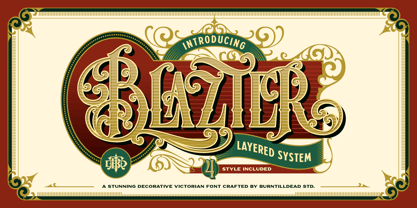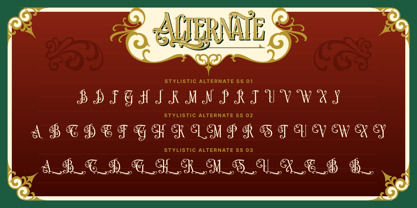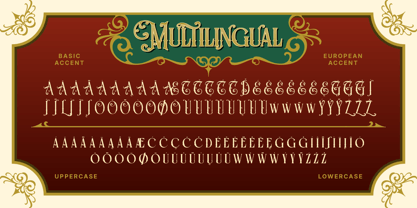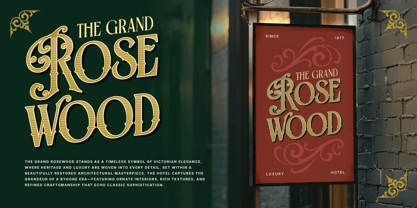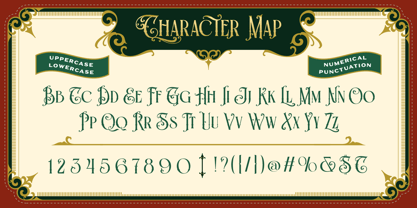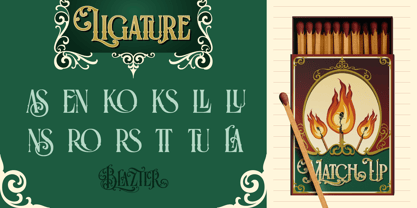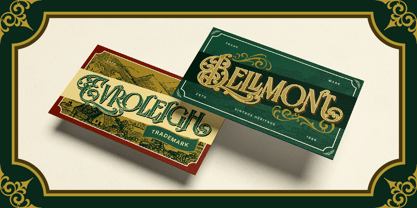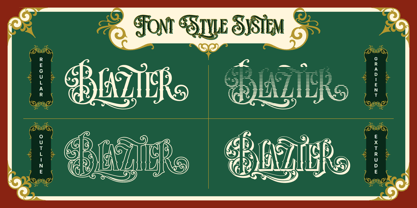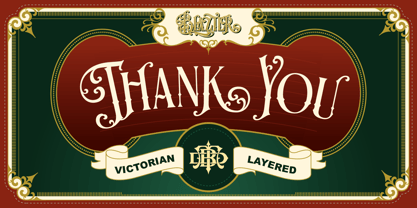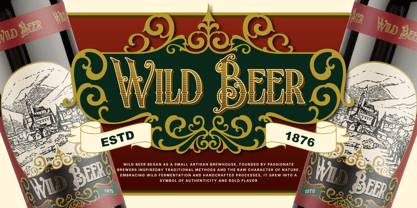
Blazter
von Burntilldead
Die Schriftfamilie Blazter wurde von Eric Kurniawan entworfen und von Burntilldead veröffentlicht. Blazter enthält 4 Stile und Familienpaketoptionen. Mehr über diese Familie
Blazter is a stunning decorative Victorian font designed to bring elegance, vintage charm, and bold character into your designs. Inspired by classic 19th-century typography, this font features intricate swashes, ornamental details, and a beautifully crafted layered system.
Built with a layered font system, Blazter allows you to easily create eye-catching typography with depth and dimension. Whether you're going for a classic gold engraving look or a bold vintage label style, this font gives you full creative control.
Perfect for designers who want to create luxury, heritage, and retro-inspired visuals with a strong personality.
Features: A - Z set (Uppercase & Lowercase), Number, Punctuation, Alternates, Ligatures, Multilingual